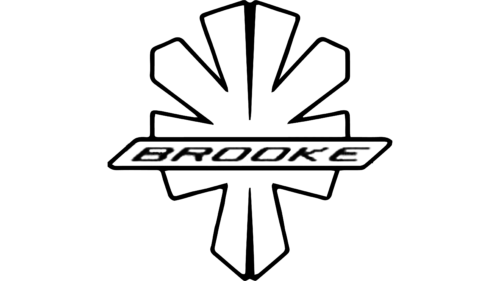
Founded by Brooke Kensington, Brooke Cars is a distinguished British automotive company, renowned for crafting high-performance vehicles with a blend of luxury and innovation. Their lineup showcases sleek design, advanced engineering, and a commitment to eco-friendly technology. Brooke Cars, deeply rooted in British motoring heritage, continuously pushes boundaries in automotive excellence. They specialize in limited edition models, each embodying a unique blend of speed, elegance, and cutting-edge technology. This dedication to quality and exclusivity has positioned Brooke Cars as a leader in the luxury automotive sector, appealing to enthusiasts who value bespoke craftsmanship and superior driving experiences.
Brooke Cars, founded by the visionary Brooke Kensington, is a British automotive gem with a rich history dating back to the early 20th century. Initially, the company made its mark by producing high-quality, durable vehicles for the burgeoning market of motor enthusiasts. In the 1930s, Brooke Cars gained acclaim for their innovative use of lightweight materials, which significantly enhanced performance and fuel efficiency. This period also saw the introduction of their iconic roadster, a symbol of elegance and speed.
Post-World War II, Brooke Cars shifted focus to luxury models, embodying a perfect blend of comfort and performance. The 1950s and 1960s were golden years, with the company unveiling a series of groundbreaking designs that set new standards in automotive engineering. Their vehicles became synonymous with British sophistication, attracting a global clientele.
The oil crisis of the 1970s posed challenges, but Brooke Cars adapted by pioneering more fuel-efficient and environmentally friendly technologies. This era marked the beginning of their journey into sustainable automotive solutions, a vision that continues to guide the company.
In the late 20th century, Brooke Cars expanded its global footprint, establishing manufacturing and design centers worldwide. This expansion brought new perspectives and technological advancements, further cementing their status in the luxury car segment.
Entering the 21st century, Brooke Cars embraced the digital revolution, integrating advanced electronics and connectivity features in their vehicles. They also ventured into electric vehicle production, combining their heritage of luxury and performance with cutting-edge eco-friendly technology.
Brooke Cars stands as a beacon of innovation, luxury, and sustainability in the automotive world. Their commitment to excellence and adaptation to changing times have ensured their enduring legacy and appeal, making them a prestigious name in the global automotive industry.
What is Brooke Cars?
Brooke Cars is a renowned British automotive company, celebrated for its fusion of traditional craftsmanship and modern innovation. Known for producing luxury vehicles that blend high performance with elegant design, the company has established itself as a symbol of automotive excellence and bespoke engineering in the global market.
Brooke Logo
The logo depicts a bold, stylized emblem reminiscent an abstracted, angular snowflake, conveying a sense of radiance and dynamism. Centered within this motif is a ribbon banner bearing the name “BROOKE,” which anchors the design and provides a clear focal point. The font is modern, with a sleek, industrial feel, suggesting precision and contemporary design values. The use of stark black and white colors imparts a classic contrast, indicating the brand’s elegance and straightforwardness. This logo is symbolize the company’s commitment to innovation and its British heritage, with the radiating elements potentially reflecting a spirit of expansion and reach in their industry.